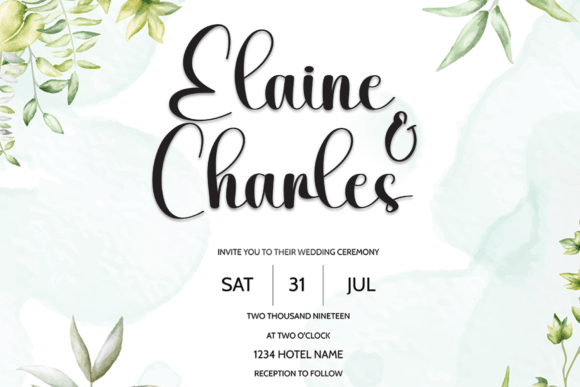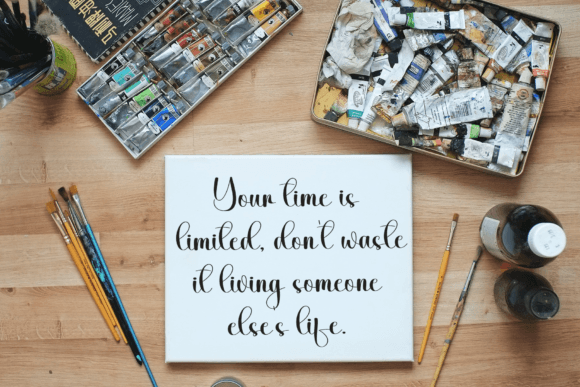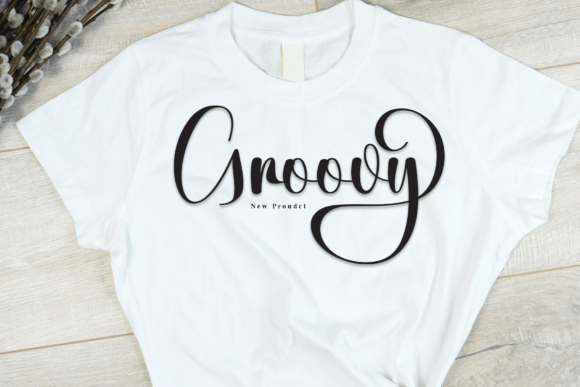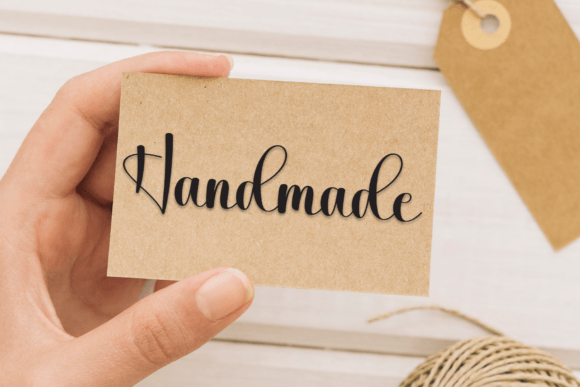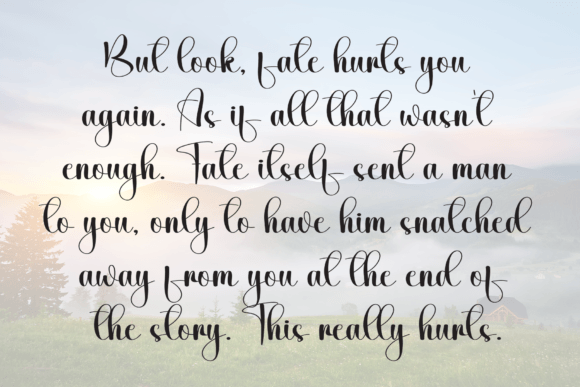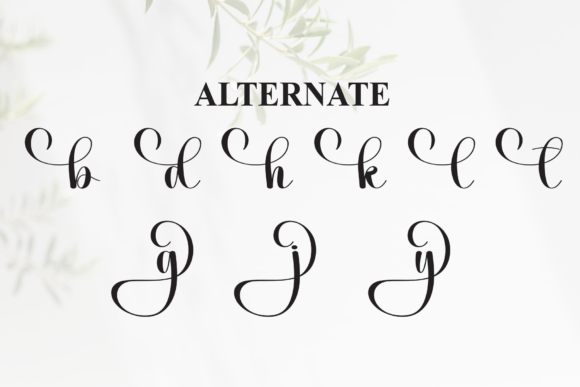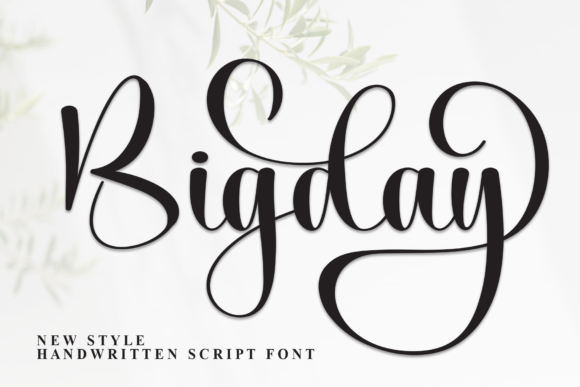
Discover the Charm of Bigday Font: Elevate Your Designs with a Timeless Handwritten Style
Are you on the hunt for a font that adds a personal touch to your designs? Look no further than Bigday Font, a lovely and timeless handwritten font that is perfect for creating eye-catching logos, branding, and quotes. With its unique and beautiful touch, Bigday Font is sure to make your design come alive!
The Unique Characteristics of Bigday Font
Bigday Font boasts a distinctive handwritten style that sets it apart from other fonts. Every letter has a unique and beautiful touch, which gives your designs a personal and human feel. The font’s timeless quality ensures that it won’t go out of style anytime soon, making it a great investment for designers and crafters.
Why Choose Bigday Font for Your Designs?
So, why should you choose Bigday Font for your designs? Here are just a few reasons:
- Elegant and Sophisticated: Bigday Font has an elegant and sophisticated feel that is perfect for creating high-end designs. Whether you’re working on a logo, branding, or quote, Bigday Font adds a touch of class and sophistication.
- Versatile: Bigday Font is incredibly versatile and can be used for a wide range of design projects. From stationery and packaging to web design and social media graphics, Bigday Font is the perfect choice.
- Easy to Read: Despite its elegant and cursive style, Bigday Font is easy to read, making it perfect for body text and quotes.
- Unique: Bigday Font has a unique and distinctive style that sets it apart from other fonts. Your designs will stand out from the crowd with Bigday Font.
How to Use Bigday Font in Your Designs
Using Bigday Font in your designs is easy. Here are a few tips to get you started:
- Pair it with Other Fonts: Bigday Font pairs well with other fonts, including sans-serif and serif fonts. Experiment with different font combinations to find the perfect look for your design.
- Use it for Headings and Titles: Bigday Font is perfect for headings and titles, where its elegant and sophisticated style can really shine.
- Add a Personal Touch: Bigday Font is perfect for adding a personal touch to your designs. Use it for quotes, testimonials, and other personal messages.
Bigday Font for Crafters and Designers
Bigday Font is a must-have for crafters and designers who want to add a personal touch to their designs. Whether you’re working on a craft project, creating a logo, or designing a website, Bigday Font is the perfect choice.
With Bigday Font, you can:
- Create Beautiful Stationery: Use Bigday Font to create beautiful stationery, including invitations, greeting cards, and letterheads.
- Design Eye-Catching Logos: Bigday Font is perfect for creating eye-catching logos that will make your brand stand out.
- Make Personalized Gifts: Use Bigday Font to create personalized gifts, including customized mugs, t-shirts, and tote bags.
In conclusion, Bigday Font is a lovely and timeless handwritten font that is perfect for creating eye-catching logos, branding, and quotes. With its unique and beautiful touch, Bigday Font is sure to make your design come alive! Whether you’re a designer or crafter, Bigday Font is a must-have font that will elevate your designs to the next level.